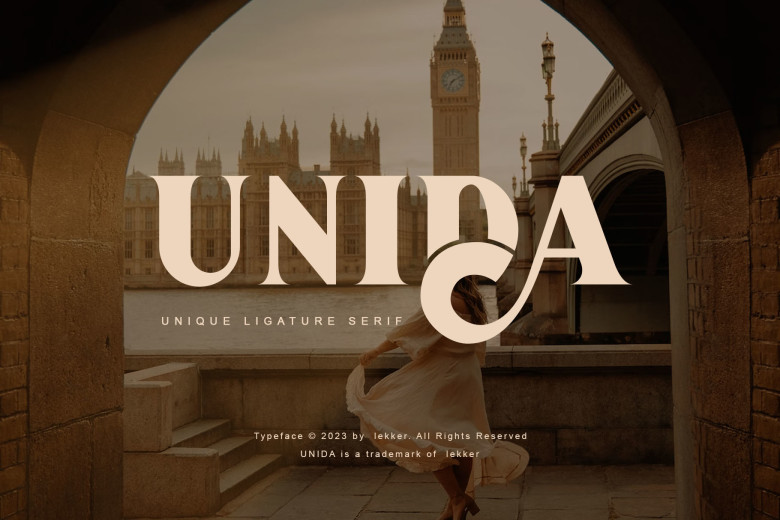
Unida Font
Unida is an elegant serif font designed with modernity in mind – its retro yet contemporary aesthetic makes it the ideal font choice for logos and magazines, providing just enough modernity, elegance, classiness and chic in every design! Already matched together and ready for use on any of your projects, Unida makes modernity accessible in your next design!
Unida Serif Font